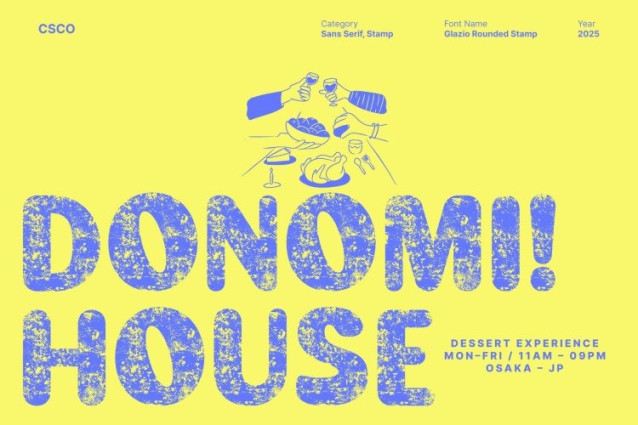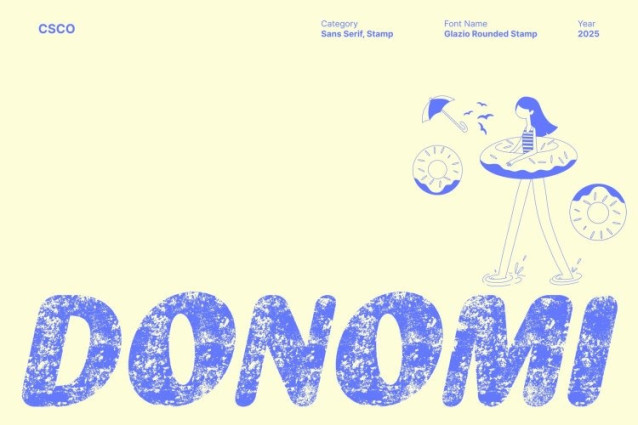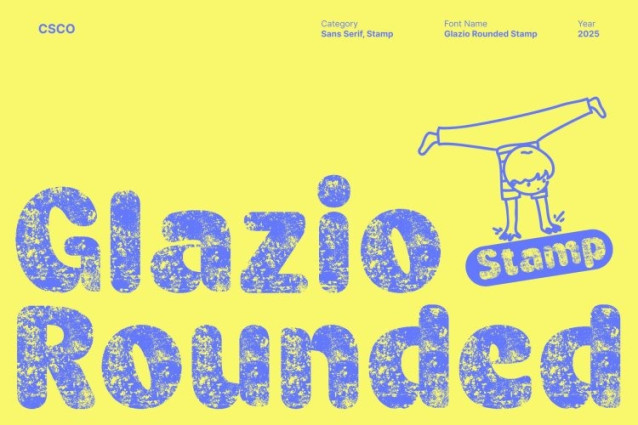
Glazio Rounded Stamp Font This is a modern sans serif display font crafted with bold, rounded shapes that bring a fresh, contemporary, and slightly funky personality to any design. Its confident forms and smooth curves create a visual style that feels both modern and friendly, making it an excellent choice for designers seeking a balance between professionalism and expressive character.
Rounded Bold Shapes for a Strong Yet Approachable Look
This typeface features thick, rounded strokes that communicate strength, stability, and clarity, while maintaining an approachable tone. The combination of solid geometry and soft curves gives the font a distinctively modern feel, ideal for projects that require both impact and visual warmth.
Stamped Texture for Authentic Vintage Drama
Adding to its contemporary form is the unique stamp effect, which introduces subtle imperfections and textured edges across each letter. This handcrafted finish brings a vintage, dramatic, and tactile quality, reminiscent of retro printing techniques and distressed ink impressions.
Perfect for Branding, Posters, and Creative Display Use
This font shines in display applications, making it perfect for branding, posters, packaging, logos, editorial titles, and creative digital layouts. Its bold rounded shapes ensure strong visibility, while the stamped texture adds personality and charm, allowing your designs to stand out with a unique edge.